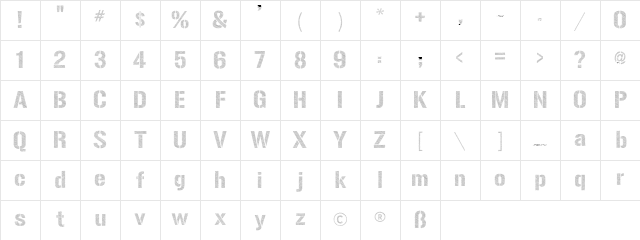
Urban Sketch Regular Free Font
Urban Sketch Regular
Foundry: Nils von Blanc
Designer: Nils von Blanc
Design Context for Urban Sketch
Urban Sketch is a composed and adaptable typeface that performs quietly and consistently across a wide range of design contexts.